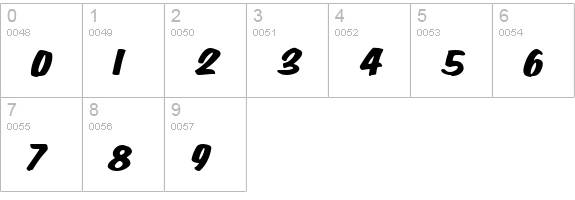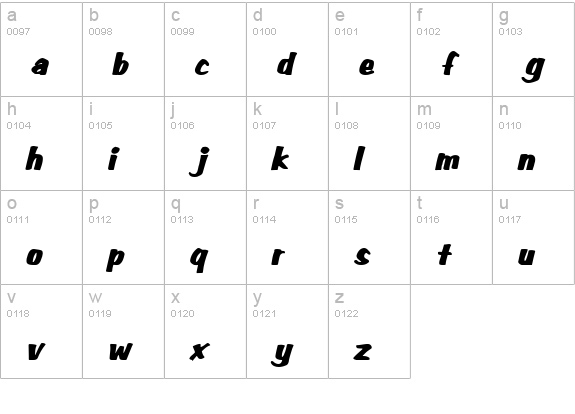
Big Nib-Extended Italic Font Details
Big Nib-Extended Italic is a distinctive, extended-width, italic variant in the Big typeface family \xE2\x80\x94 well suited to design and typography projects.
Big Nib-Extended Italic is a beautifully crafted font that exudes elegance and sophistication. Its elongated and slanted strokes give it a unique and eye-catching appearance, making it perfect for adding a touch of style to your designs. This font is versatile and can be used for a variety of purposes, from branding to editorial design. The best part about Big Nib-Extended Italic is that it is completely free to download at FontsMarket.com. Whether you are a designer looking to try out a new font or someone in need of a stylish typeface for a project, this font is a fantastic choice. Don't miss out on the opportunity to enhance your designs with this stunning font - download Big Nib-Extended Italic today and take your work to the next level!